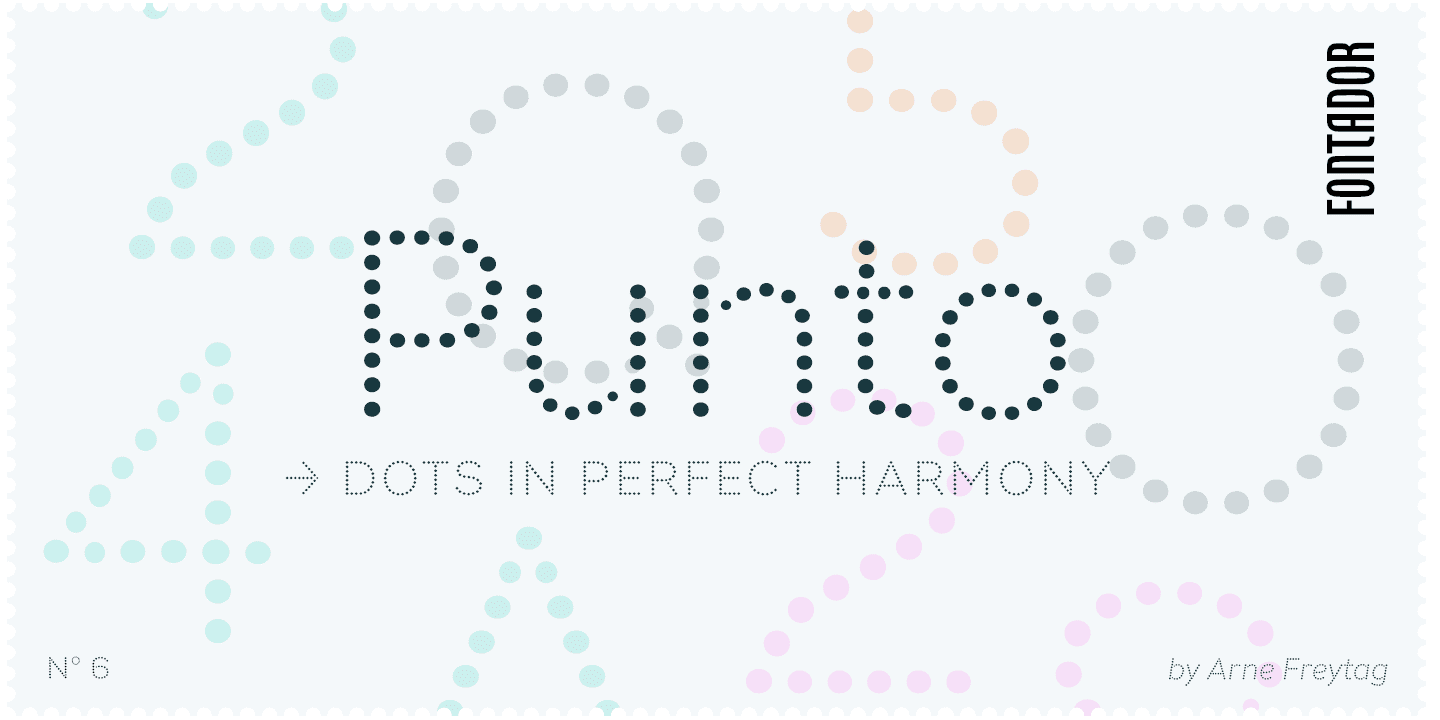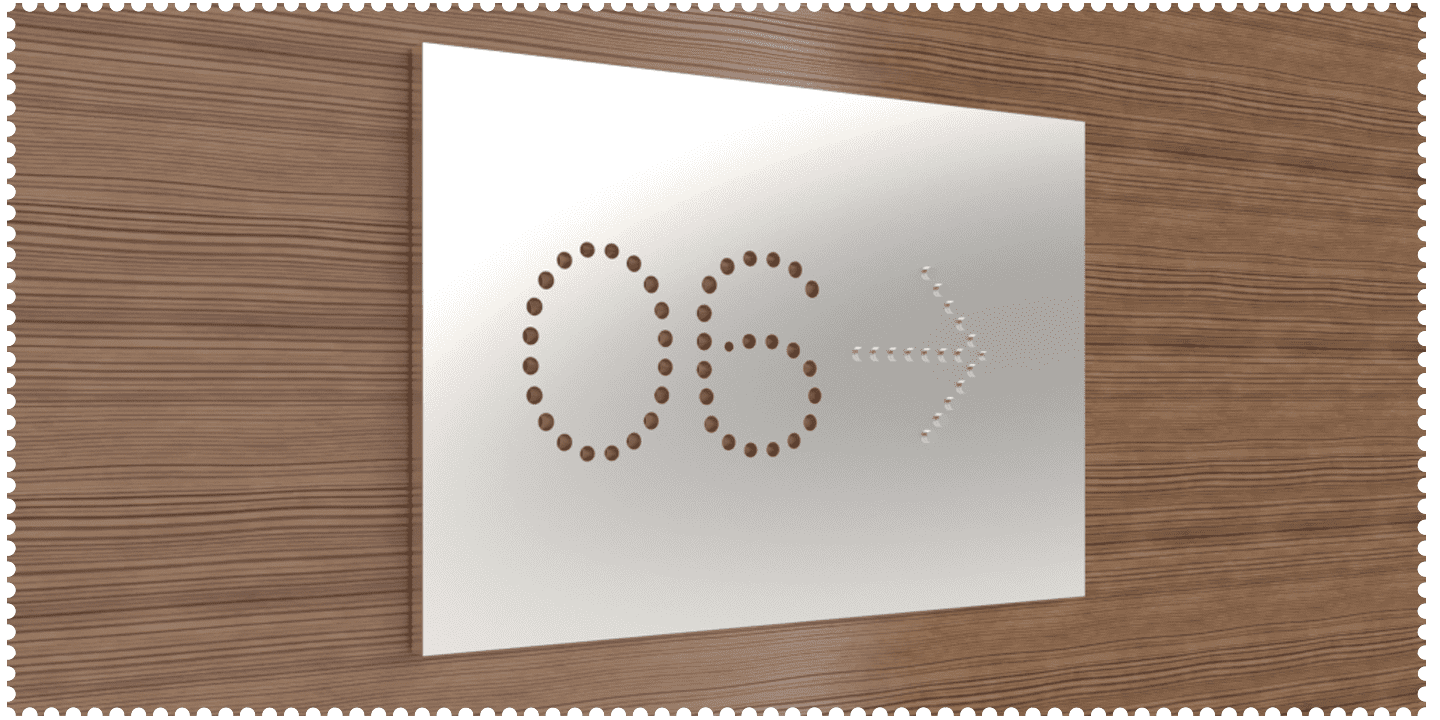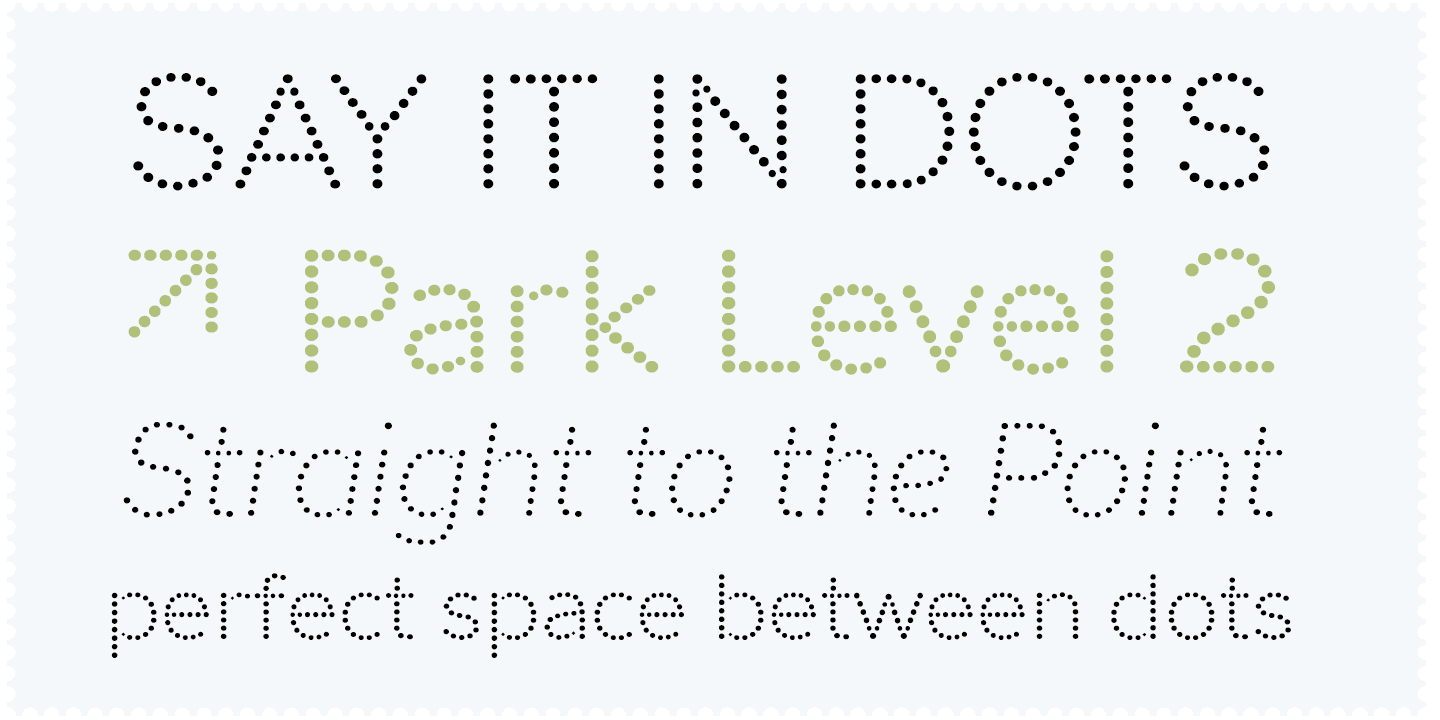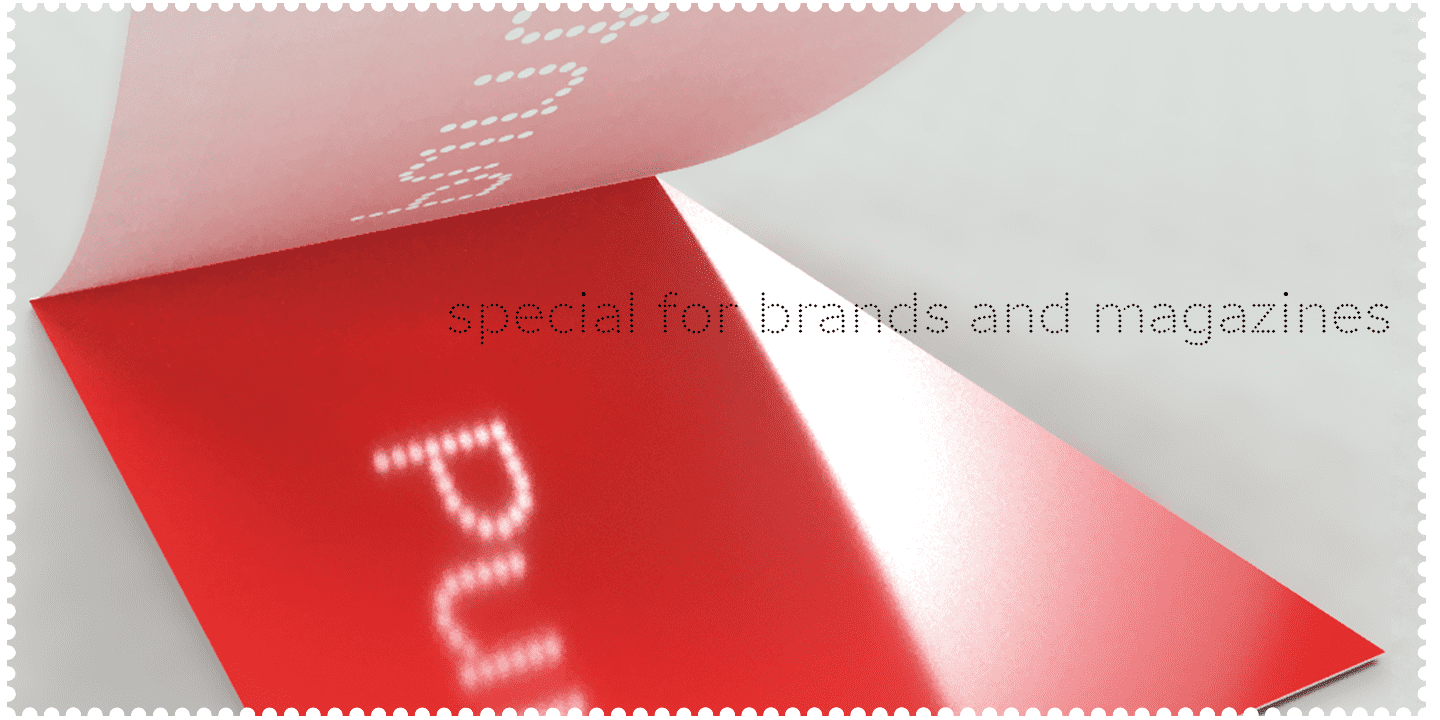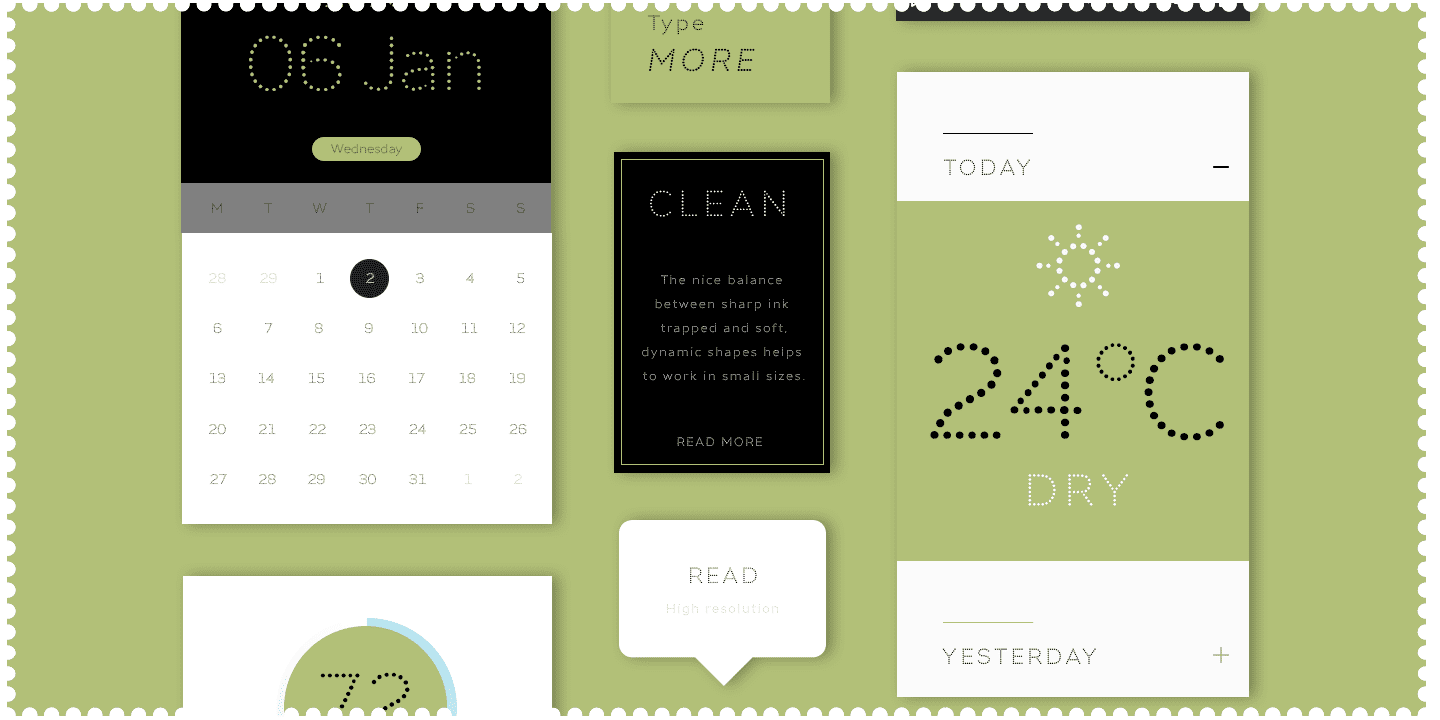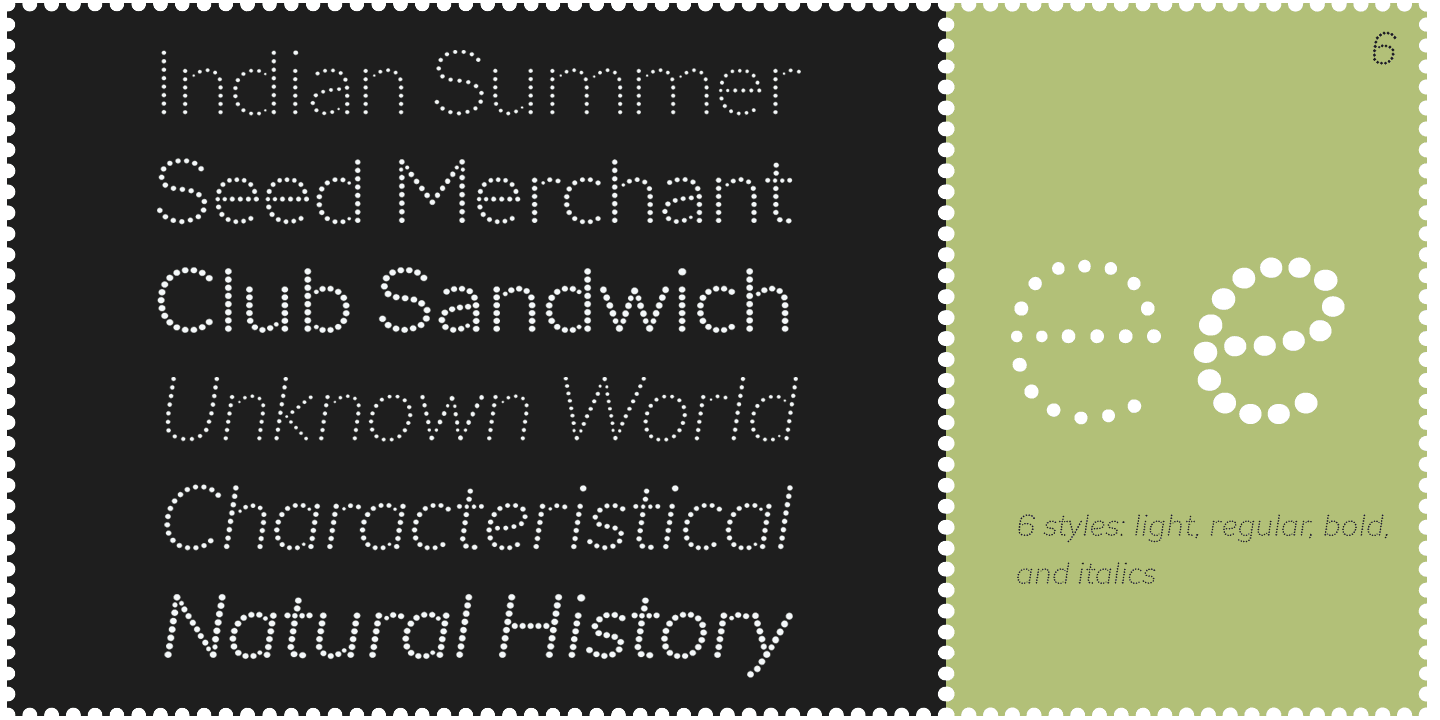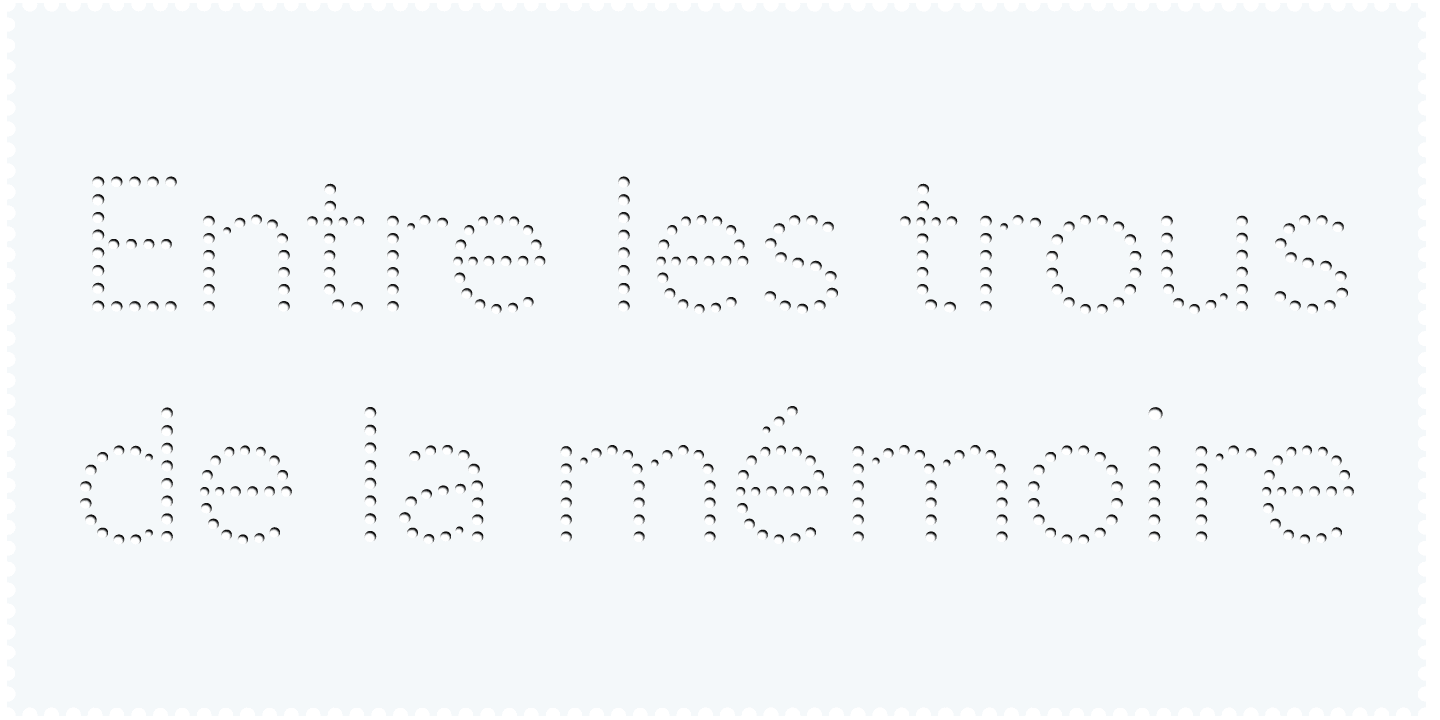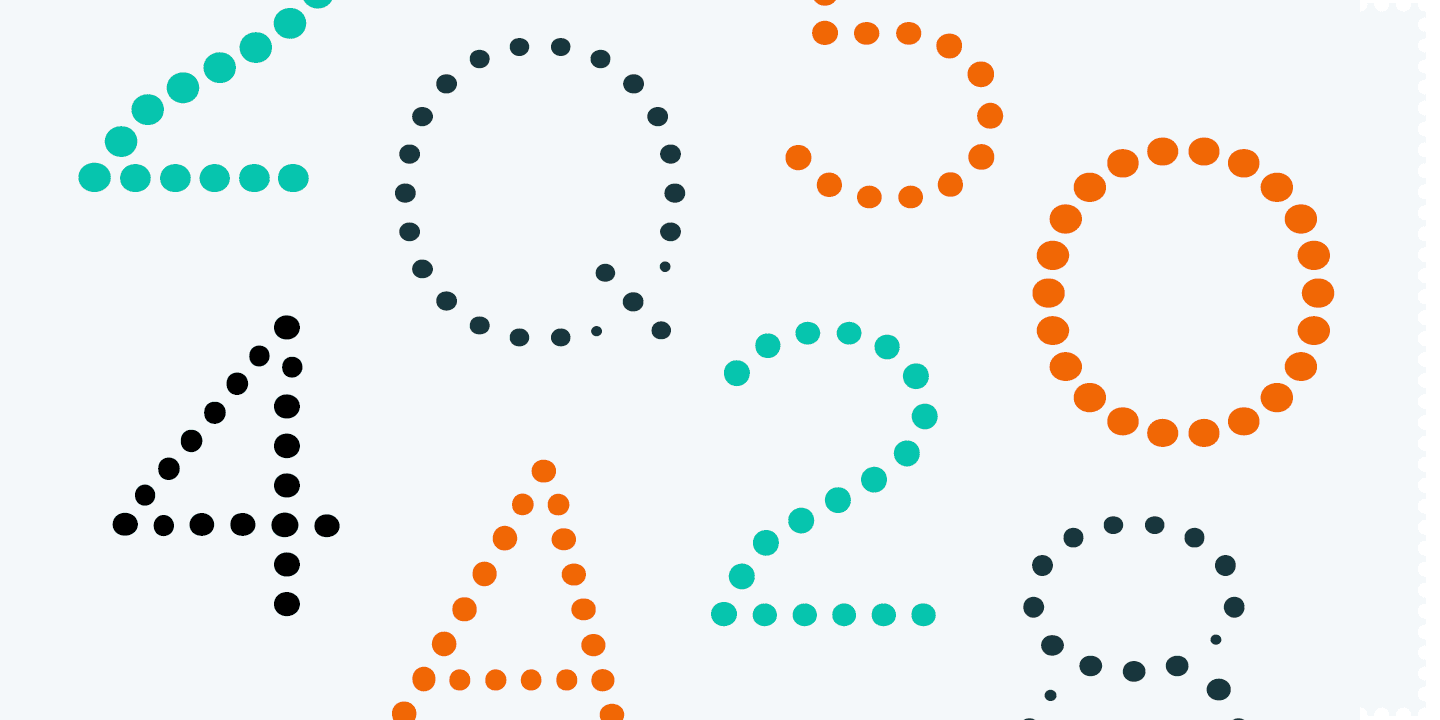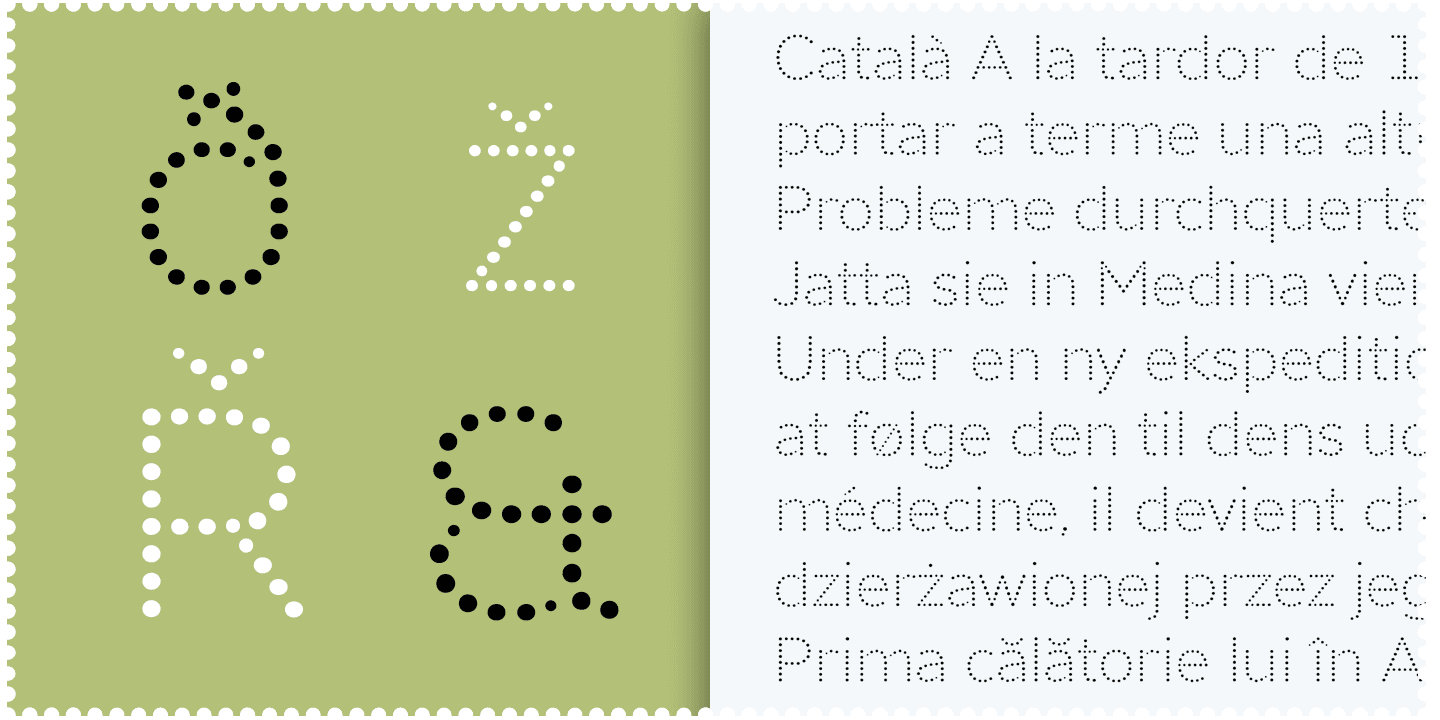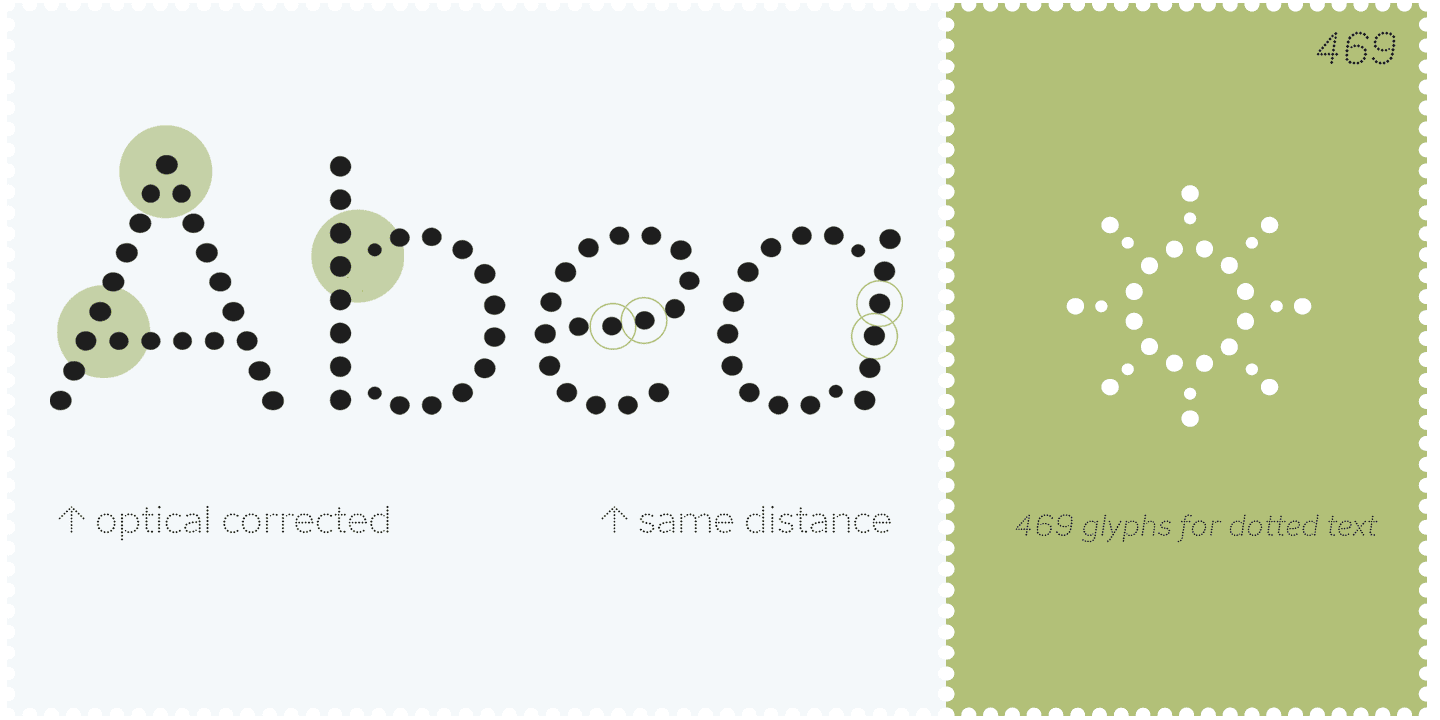
Punto is not made up of grid-based dots. They are optical corrected and there is always the same distance between the dots, with the aim to create more harmonic letterforms. The dots also vary gradually in size to reflect the thickening and thinning of strokes, giving the letterforms a sophisticated overall look. Punto comes up with 3 weights and 3 italics and is perfectly suited for logos, brands, magazines and special for signage systems and mobile devices. The language support includes Western, Central and Eastern European character sets, as well as Baltic and Turkish languages. The little sister of Punto is Punto Poly: A layered type system for cromatic typesetting.